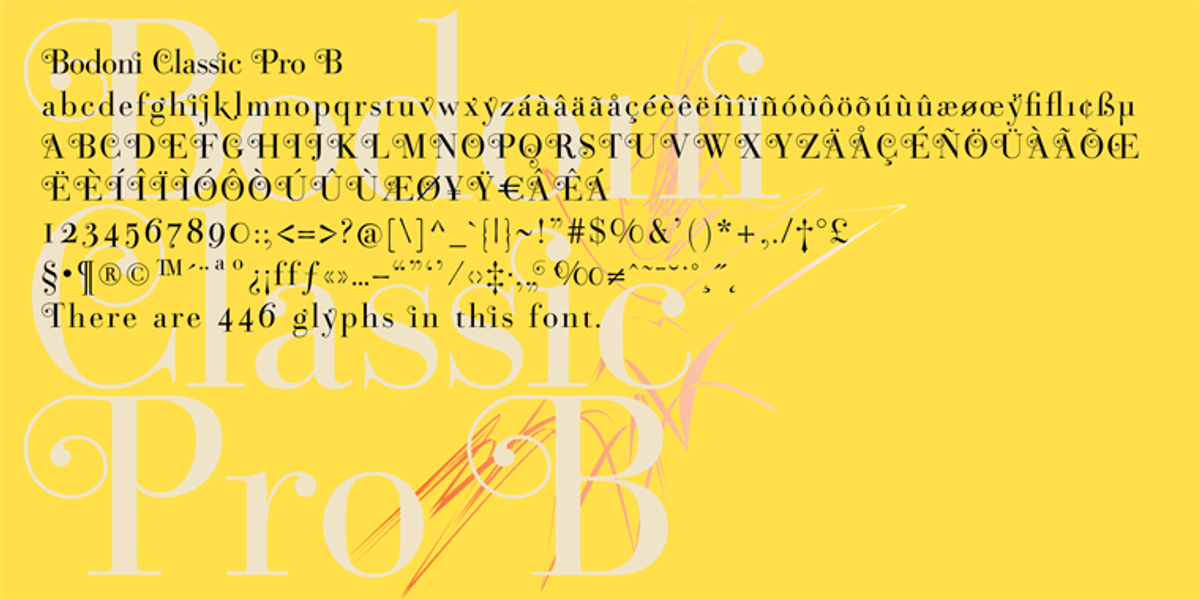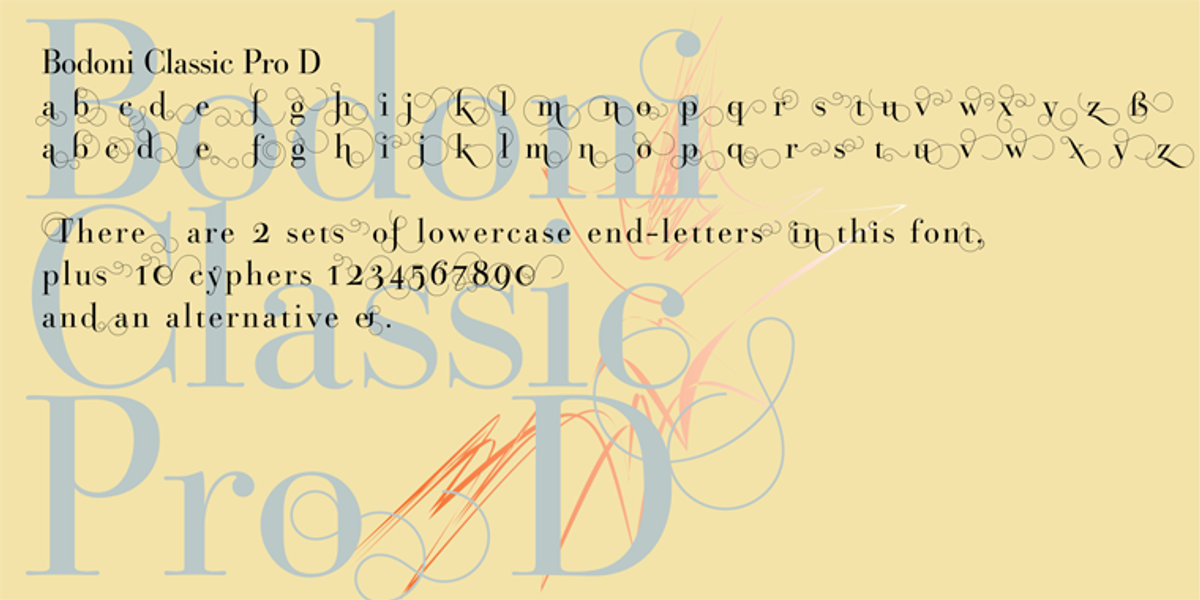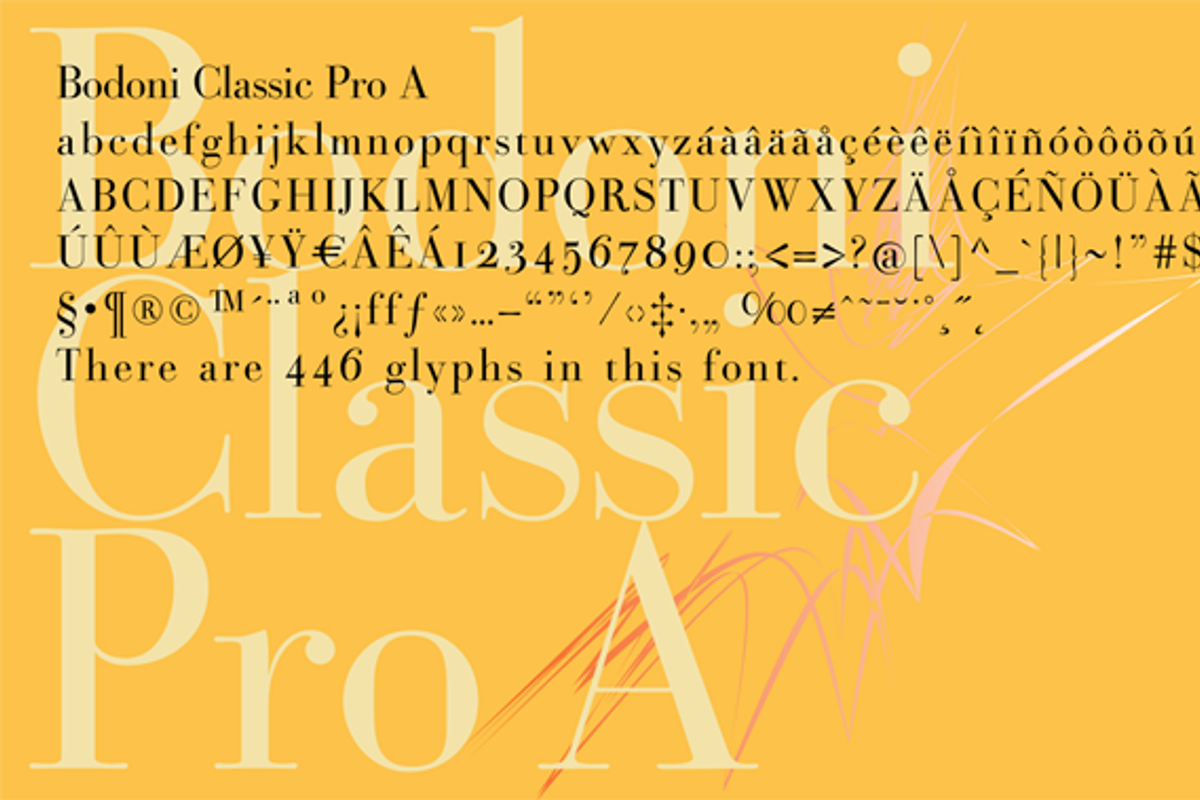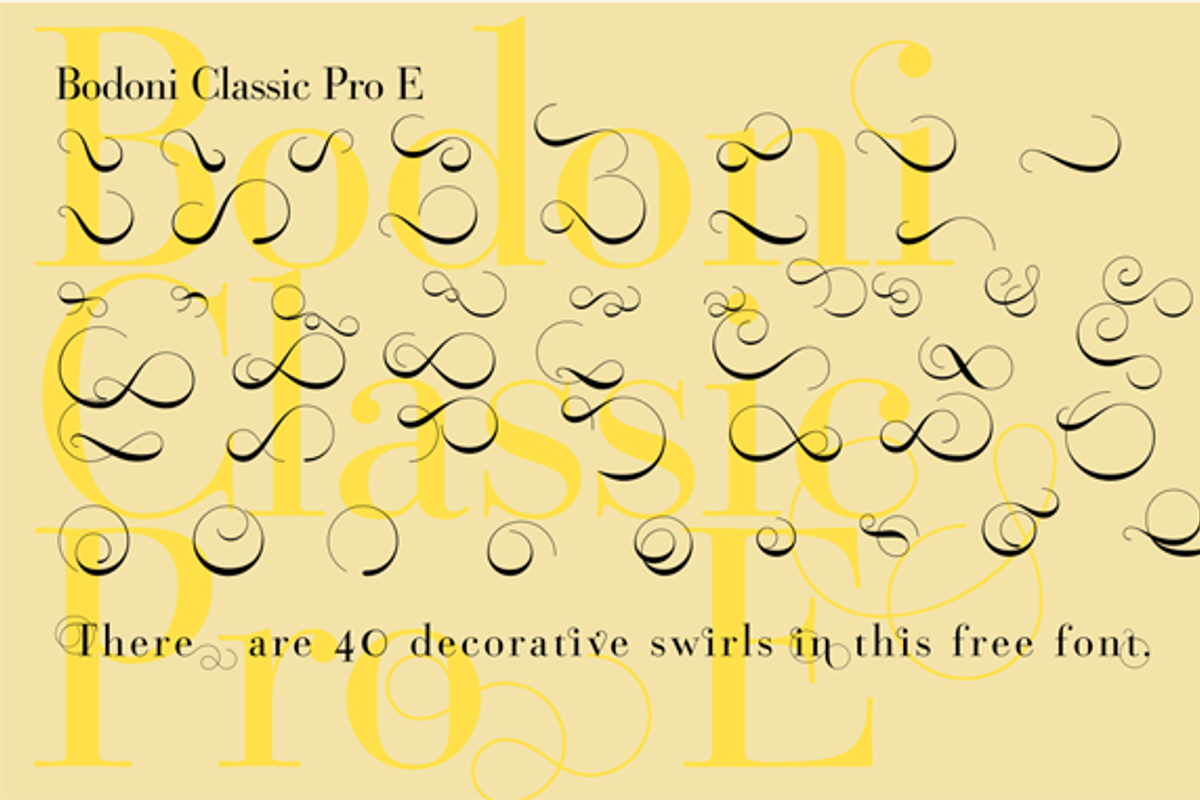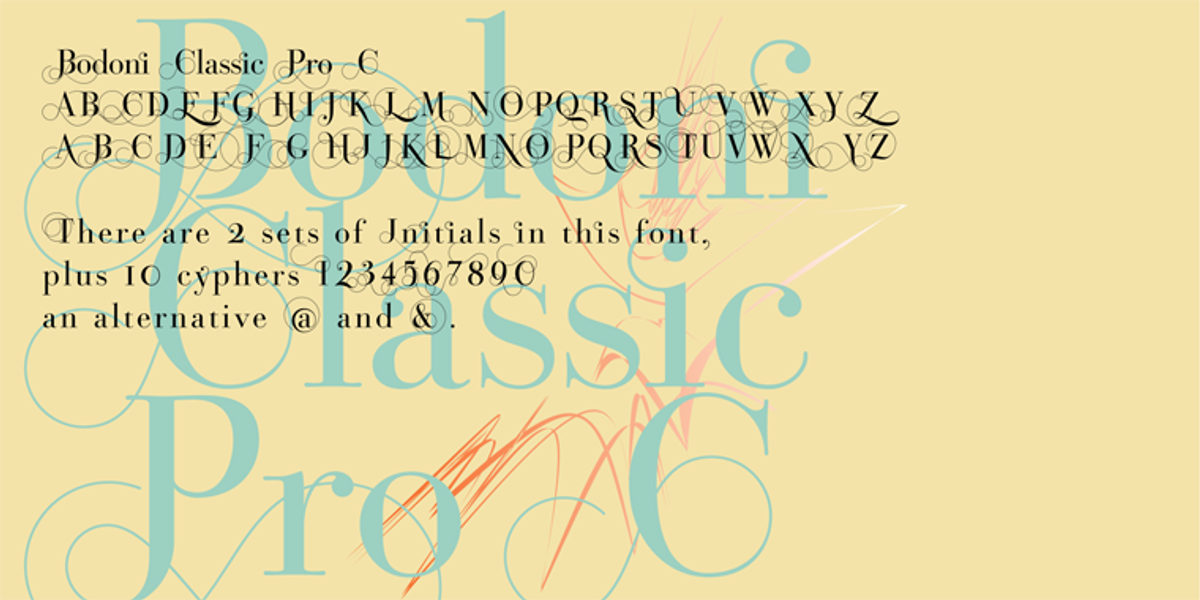
Bodoni Classic Pro
Bodoni Classic is an elegant serif font designed by Gert Wiescher. It features distinctive swashes for uppercase and lowercase letters, as well as alternate swirly initials that can replace standard capital letters. The font has extensive kerning for enhanced readability and a vintage aesthetic.